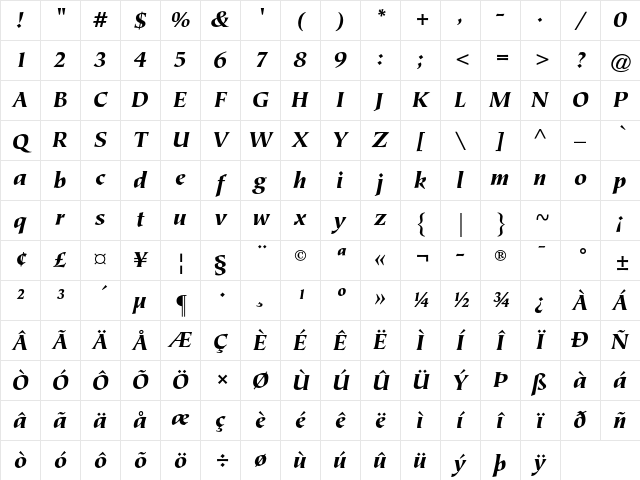
ITC Tiepolo Std Black Italic
Designer: AlphaOmega Typography
Complete ITC Tiepolo Std Black Italic glyph index. Displaying only characters natively supported by ITC Tiepolo Std Black Italic font.
Design Context for ITC Tiepolo Std
ITC Tiepolo Std is a composed and adaptable typeface that performs quietly and consistently across a wide range of design contexts. The slanted form adds forward momentum and visual energy.
Pro Tip: Use ITC Tiepolo Std for emphasis, pull quotes, and subheadings where its slanted energy can add rhythm to the layout.